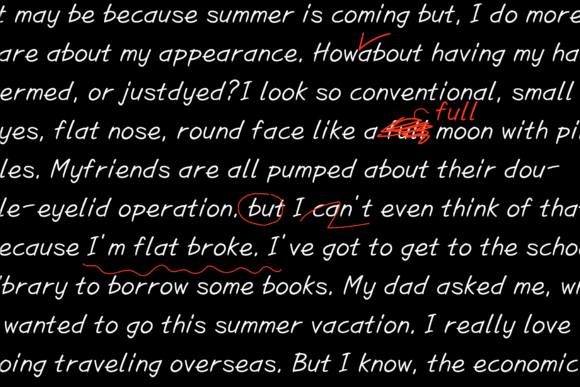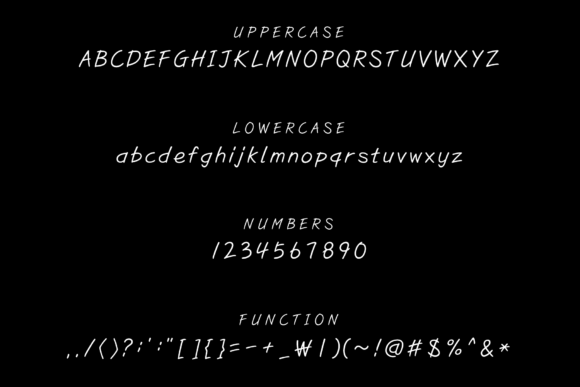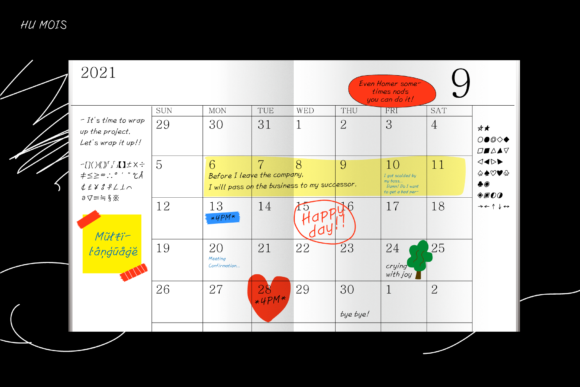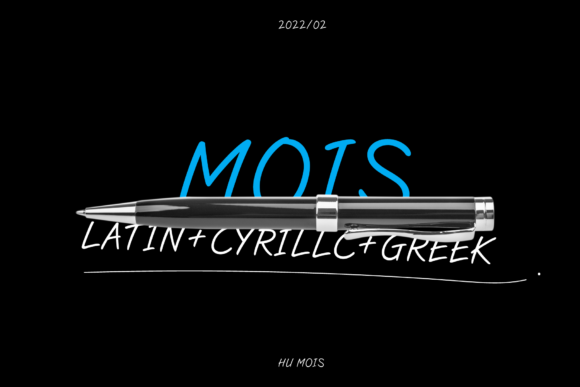
Introduction to Hu Mois Font
HU Mois is made based on a real handwriting.
And it is a font with a speedy and natural tilt as if taking notes Use it for your projects that need an informal feel.